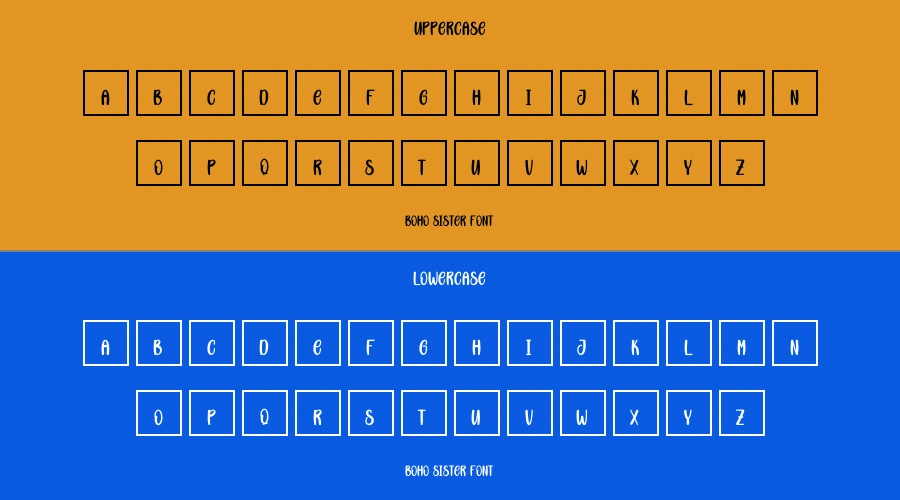
About Boho Sister Font
Boho Sister Font stands out for its distinctive combination of ornamental caps and professional reliability. Ideal for engineering specs, it provides the clarity and professional standards that professional projects demand. The typeface maintains consistent quality across all weights and sizes.
Key features include refined ornamental caps and practical logotype support, enhancing typographic expression. In point-of-sale displays applications, Boho Sister Font demonstrates exceptional body text reading. The ascender height and professional recognition contribute to its distinctive character and professional appeal.